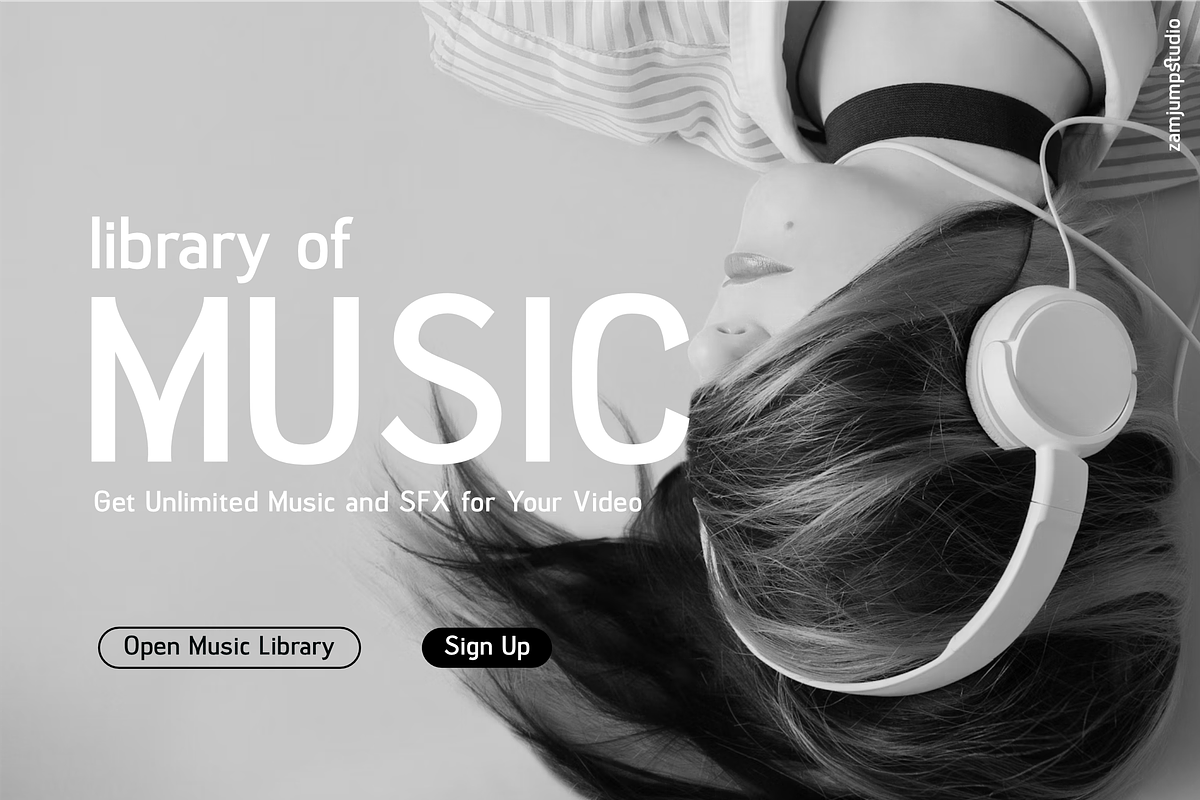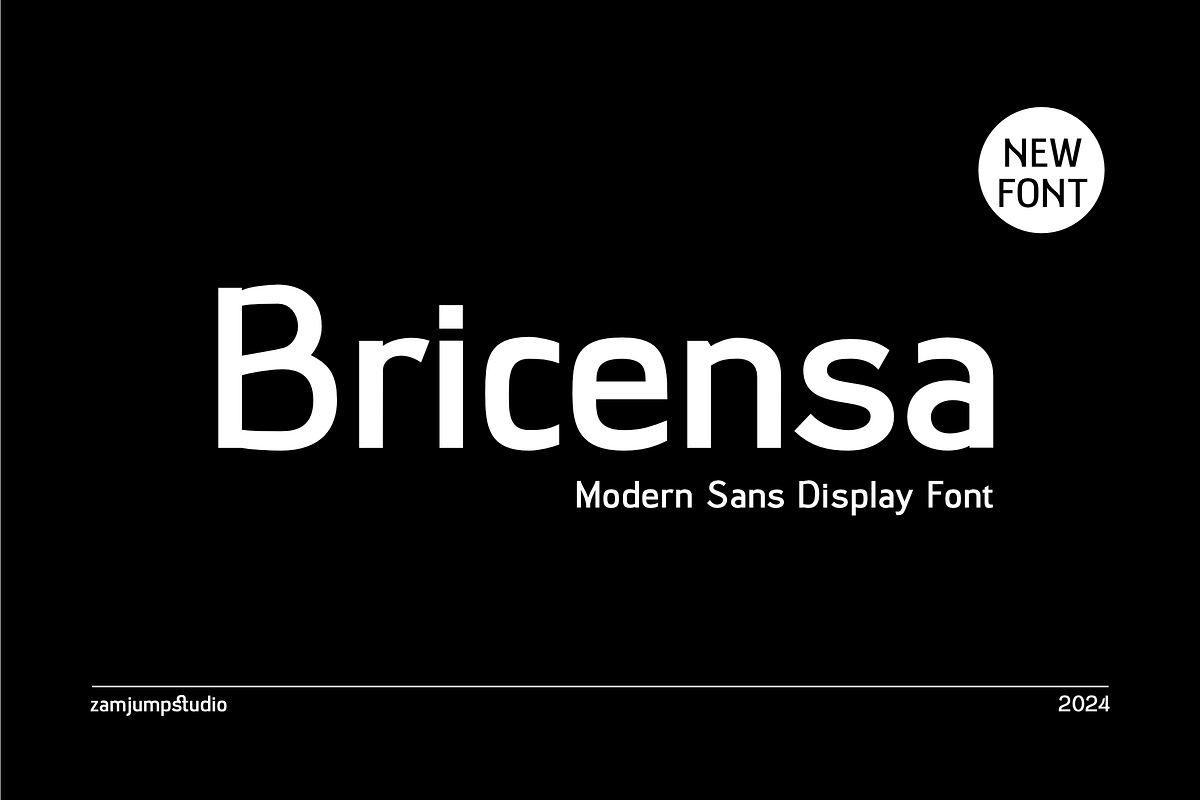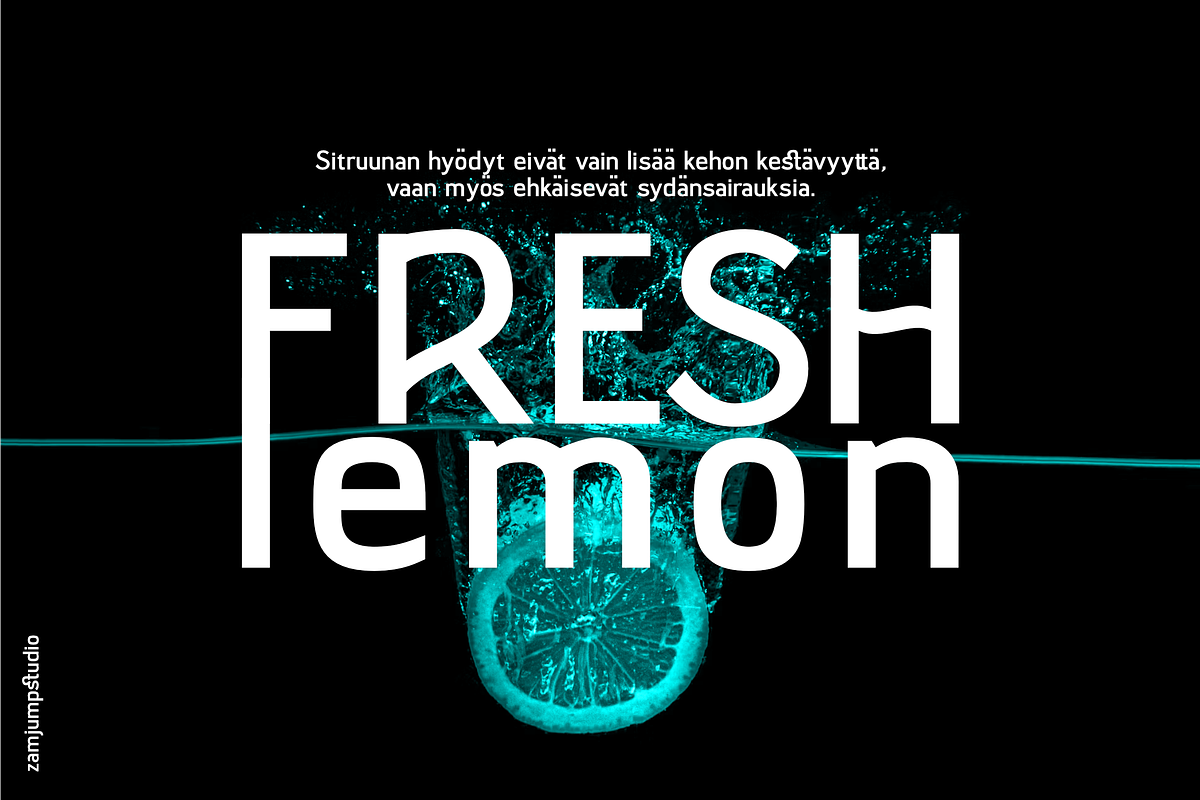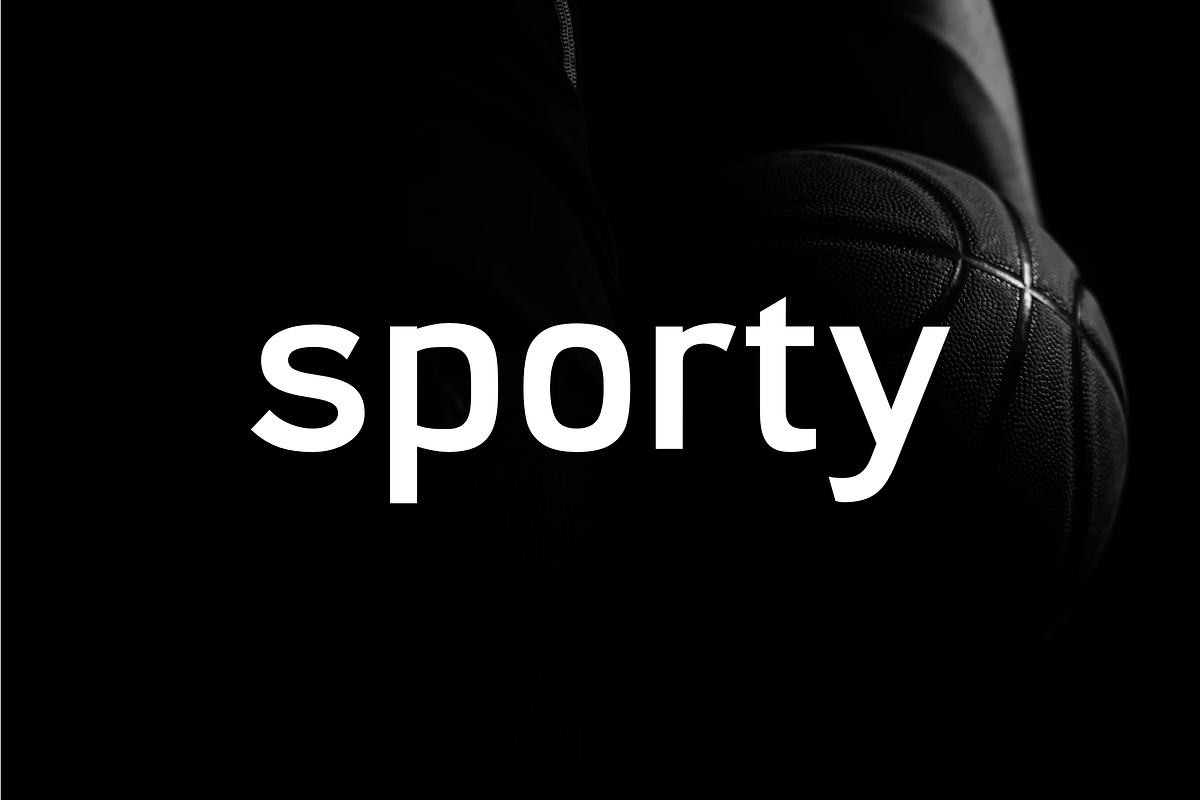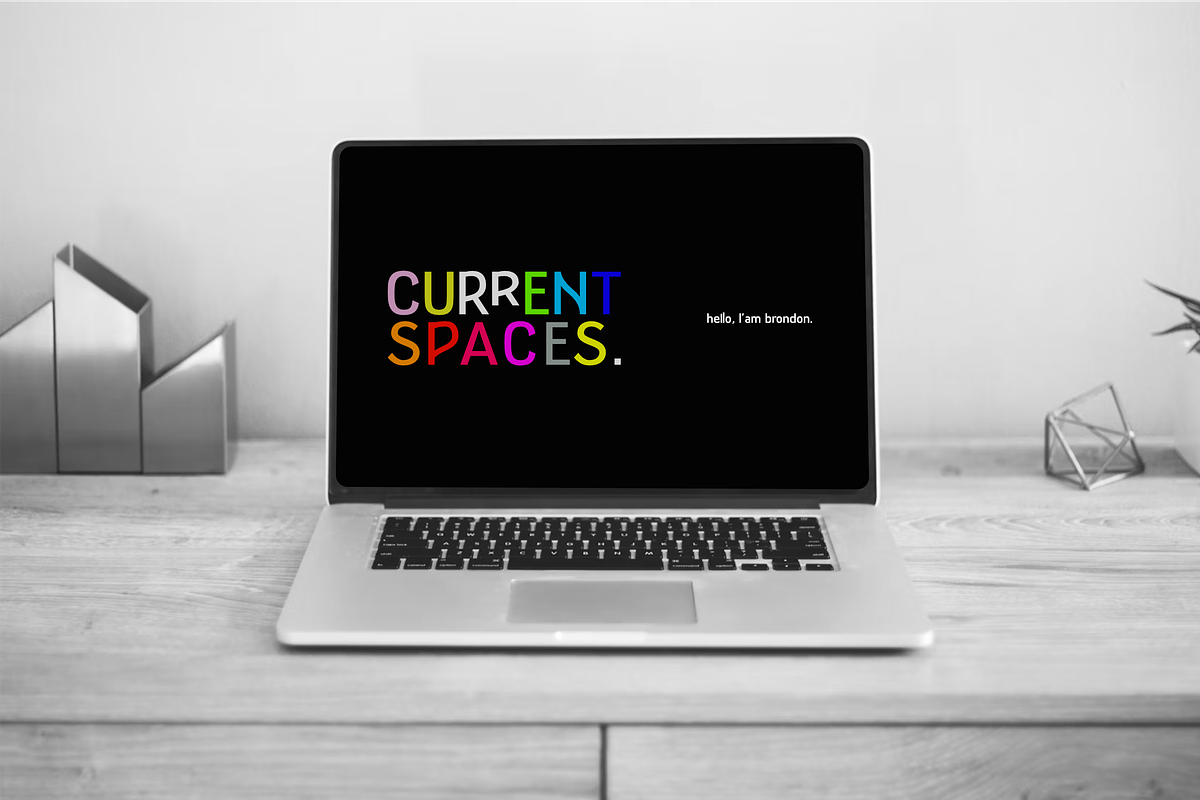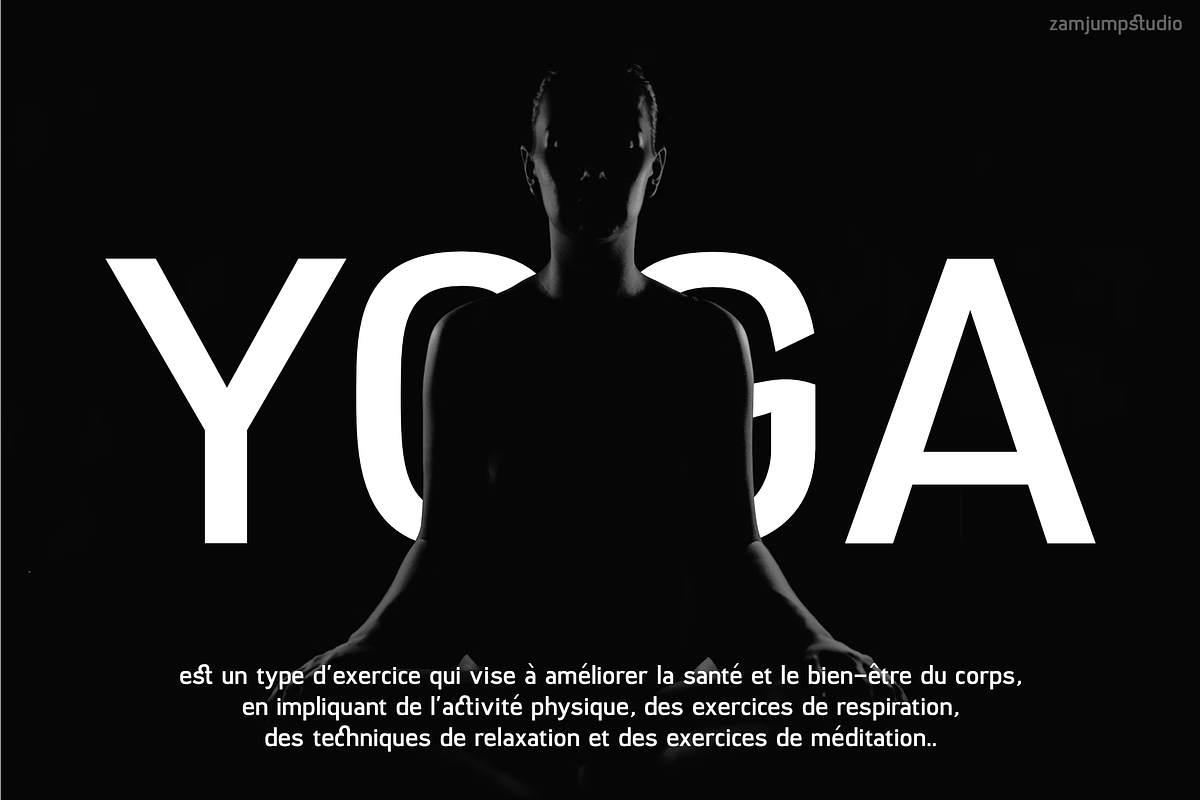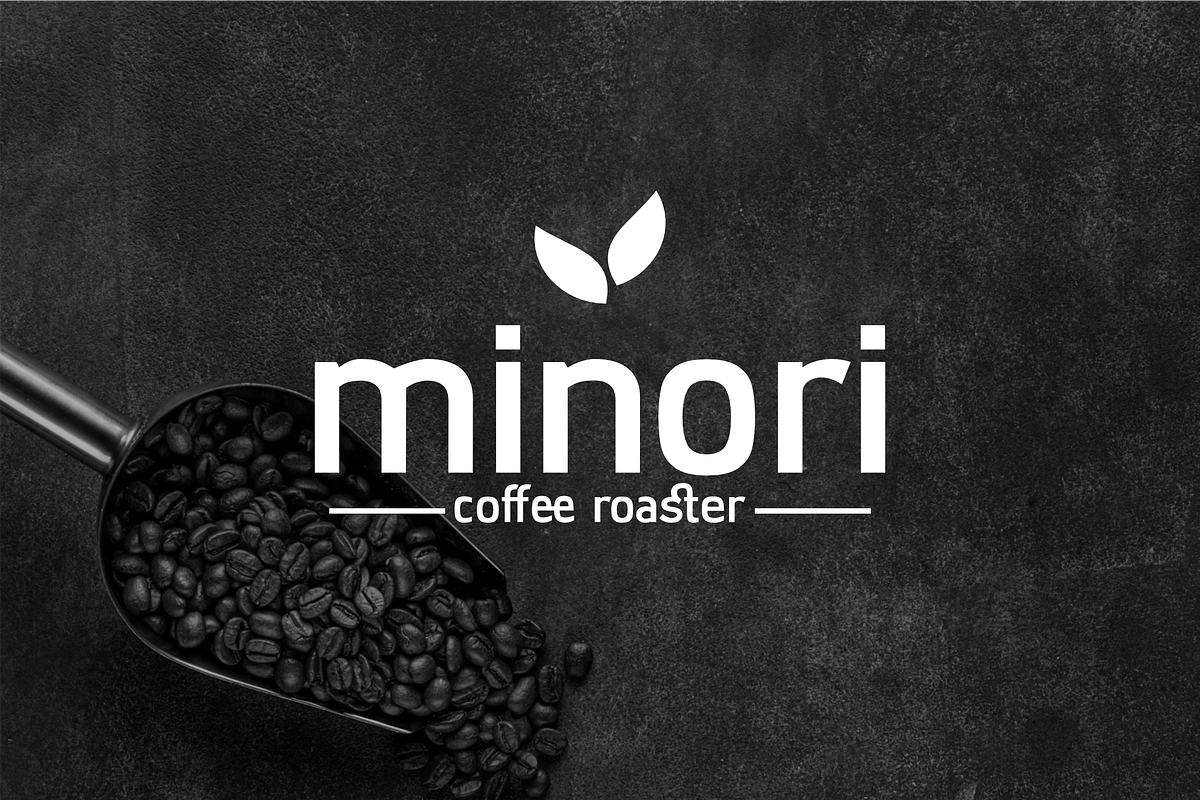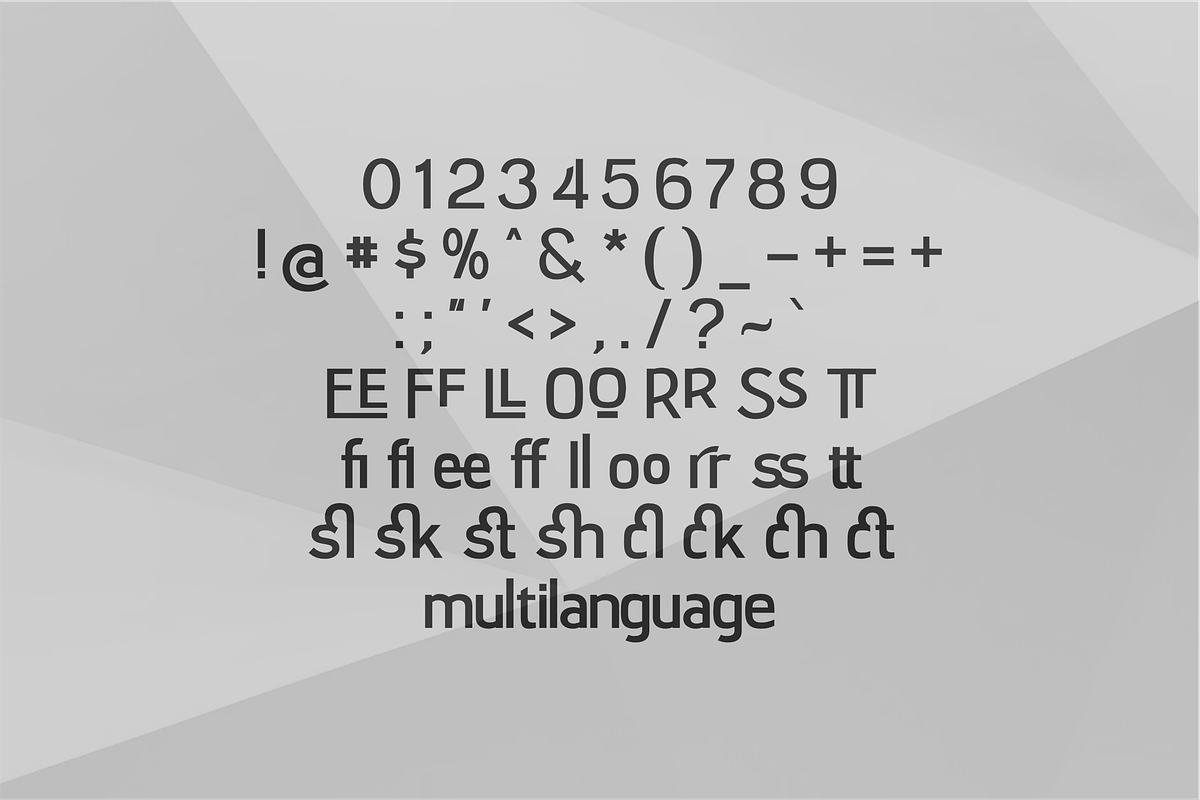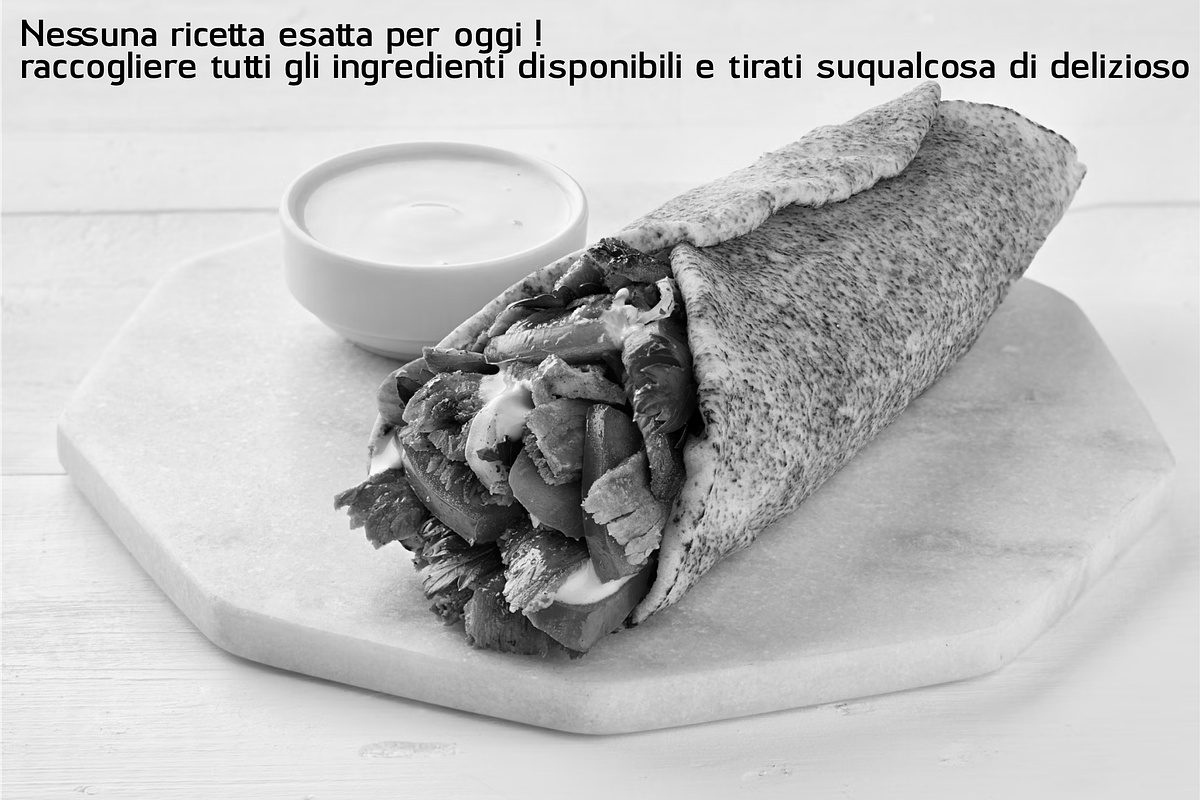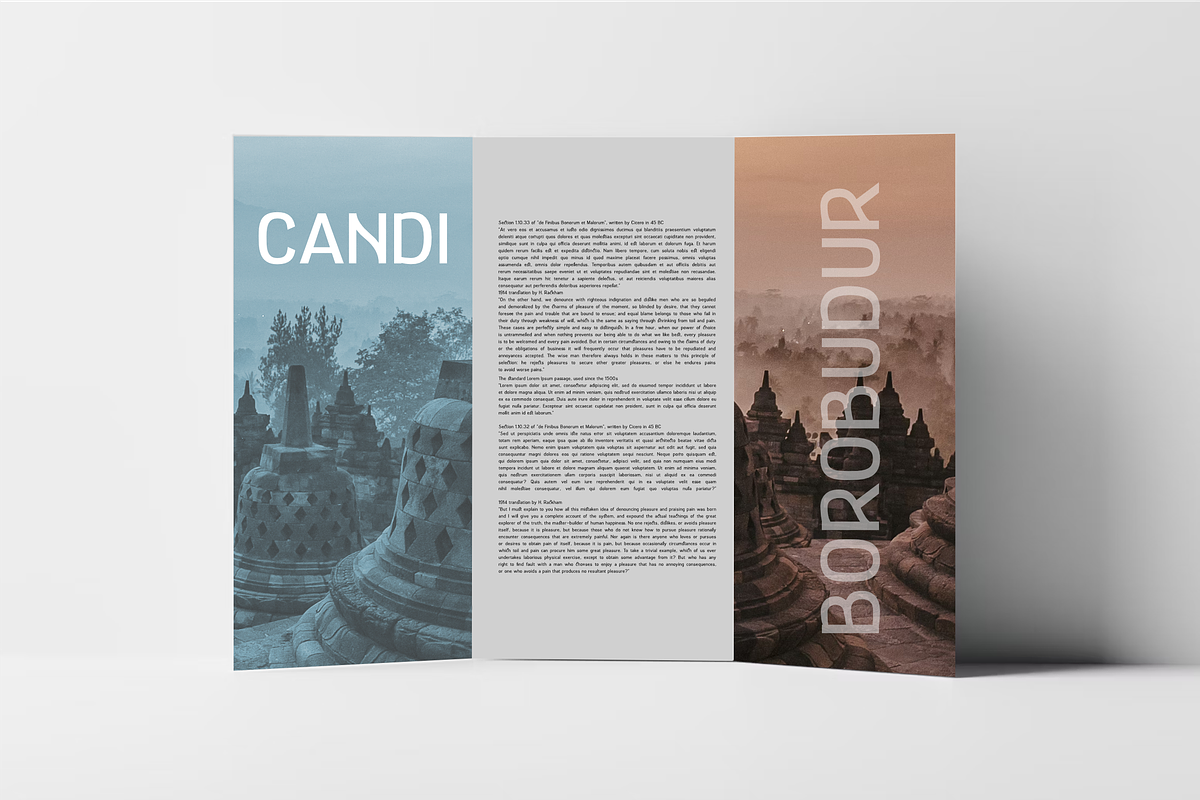
Bricensa - Modern Sans Serif Display
Bricensa - Modern Sans Serif Display Font Elevate your design projects with Bricensa, a sophisticated modern sans serif display font. Meticulously crafted to embody both contemporary aesthetics and timeless elegance, Bricensa offers a perfect blend of sharp lines and smooth curves. This versatile typeface is designed to stand out in both digital and print mediums, making it ideal for branding, headlines, posters, and editorial design. Whether you're looking to create impactful headlines or sleek logos, Bricensa is the perfect addition to your font collection. Embrace modern elegance with Bricensa and make a lasting impression in all your design endeavors. Included : OTF / TTF File format WOFF/WOFF2 File format Multi language Ligature